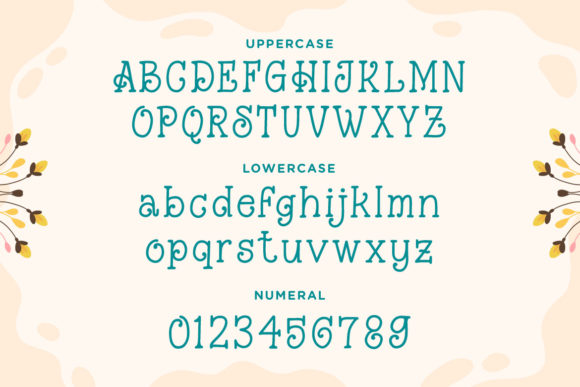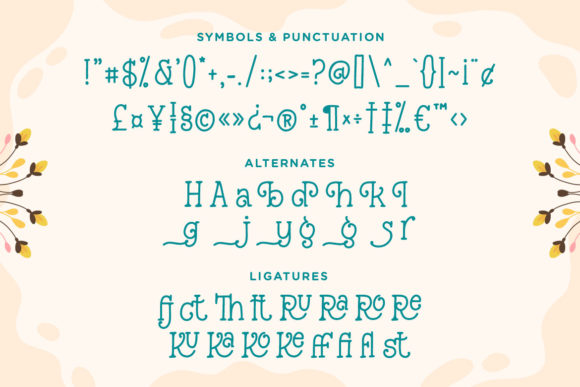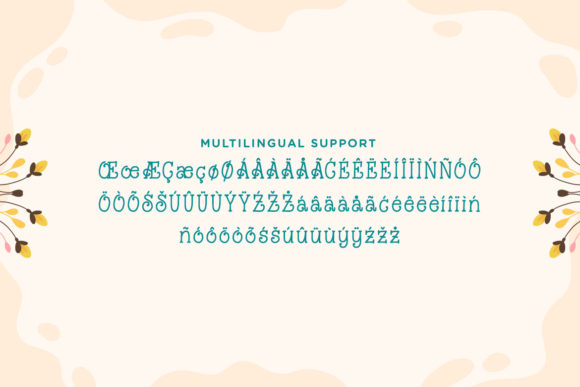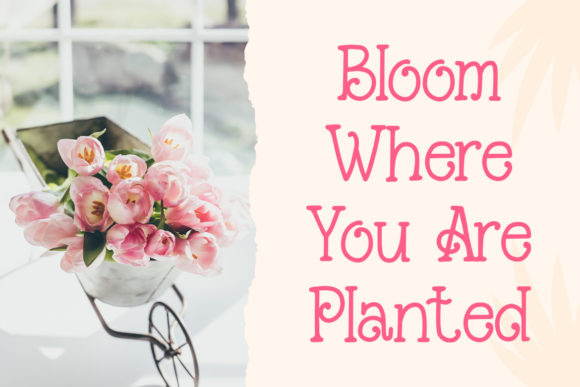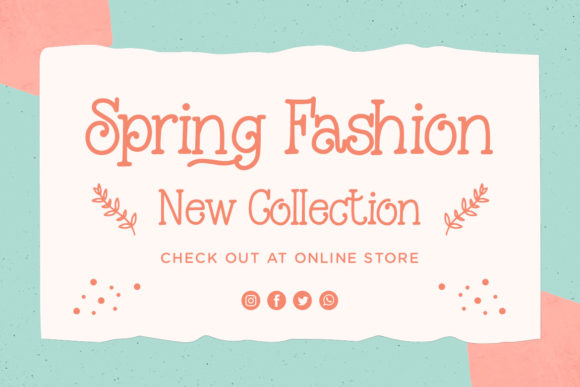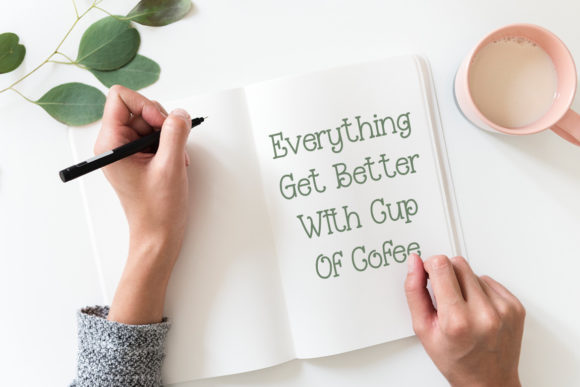
Introducing Heaven Garden Font: A Playful Serif Font for Creative Projects
Are you tired of using the same old fonts for your creative projects? Look no further! Heaven Garden Font is an incredibly fun, cool, and playful serif font that’s sure to add a touch of personality to your designs. In this article, we’ll take a closer look at the features and benefits of Heaven Garden Font, and explore how it can elevate your typography game.
What is Heaven Garden Font?
Heaven Garden Font is a unique and charming serif font that’s perfect for designers and crafters looking for a fresh and exciting typography option. Its playful and whimsical design makes it ideal for a wide range of creative projects, from invitations and greeting cards to logos and branding materials.
One of the standout features of Heaven Garden Font is its PUA (Private Use Area) encoding. This means that you can access all of the glyphs and swashes with ease, giving you maximum flexibility and creative control. With PUA encoding, you can easily insert special characters, ligatures, and other unique elements into your designs, taking your typography to the next level.
Key Features of Heaven Garden Font
- Playful and whimsical design: Heaven Garden Font features a fun and quirky serif design that’s sure to add a touch of personality to your projects.
- PUA encoded: Easily access all glyphs and swashes with PUA encoding, giving you maximum creative control.
- Serif font: Heaven Garden Font is a classic serif font with a modern twist, making it perfect for a wide range of creative projects.
- Multilingual support: This font supports multiple languages, making it a great option for designers working on international projects.
Use Cases for Heaven Garden Font
Heaven Garden Font is a versatile typography option that can be used in a variety of creative projects, including:
- Invitations and greeting cards: Add a touch of whimsy and personality to your invitations and greeting cards with Heaven Garden Font.
- Logos and branding materials: Use Heaven Garden Font to create unique and memorable logos and branding materials for your business or clients.
- Social media graphics: Add a playful touch to your social media graphics with Heaven Garden Font.
- Packaging design: Use Heaven Garden Font to create eye-catching and memorable packaging designs.
Tips for Using Heaven Garden Font
Here are a few tips for getting the most out of Heaven Garden Font:
- Experiment with different sizes and colors: Heaven Garden Font looks great in a variety of sizes and colors, so don’t be afraid to experiment and find the perfect combination for your project.
- Pair with other fonts: Heaven Garden Font pairs well with a variety of other fonts, so try combining it with other typography options to create a unique look.
- Use swashes and glyphs: Take advantage of the PUA encoding and use the swashes and glyphs to add a touch of personality to your designs.